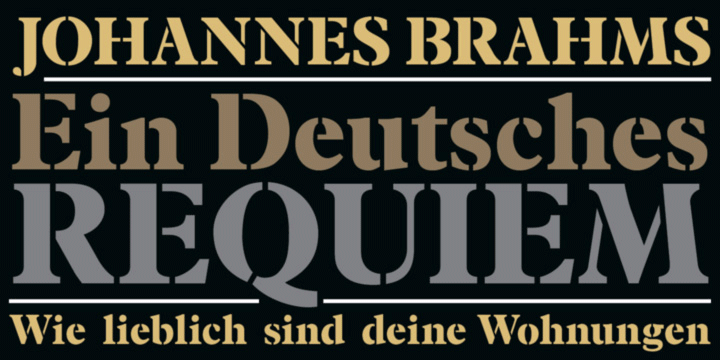
Plantain Stencil is based on Plantain which in turn is my interpretation of Plantin Adweight, which was one of my first commissioned projects (by Smarter Image, long before they went bankrupt).
Plantin Adweight is one of the most beautiful designs of the Plantin family, which is a modern revival typeface, cut under the direction of F. H. Pierpont in 1913, who based the design on that of a famous 16th century printer, Christophe Plantin, for whom Pierpont’s font was named. More…
The stencil cut of Plantain adds a bit of sparkle to the design. Supports most European languages that use the Latin alphabet.